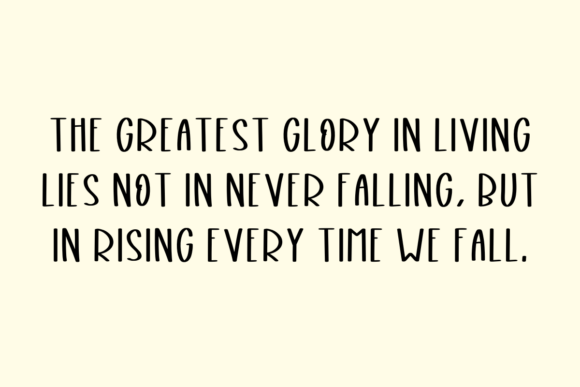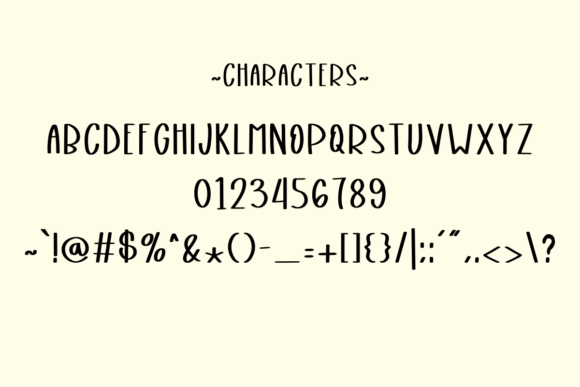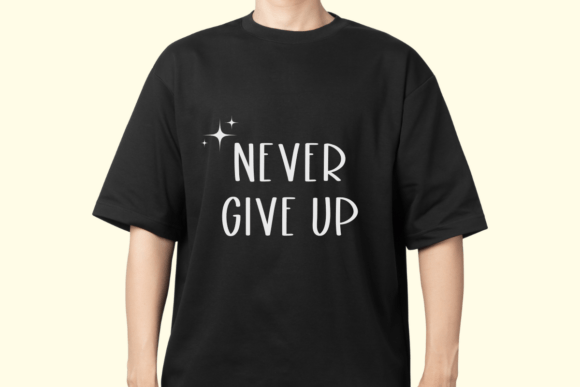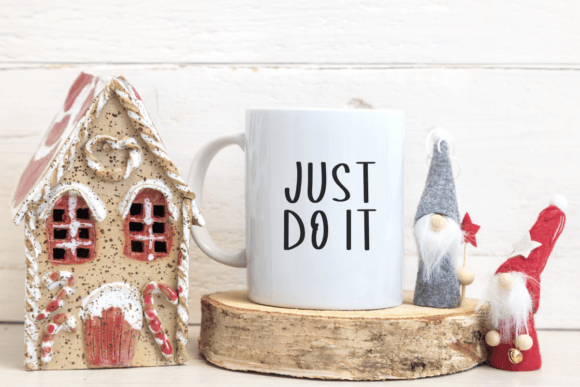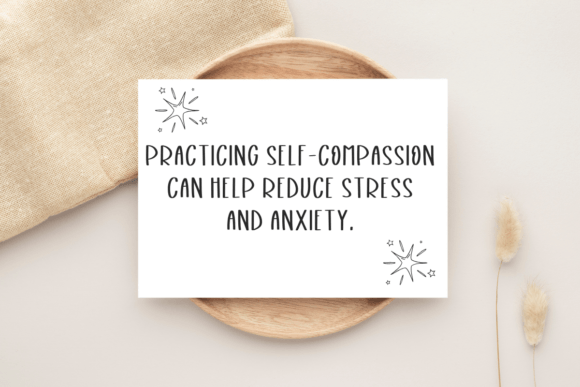
Celebration Fashion Font: Elevate Your Designs with a Fun and Unique Sans Serif Font
Celebration Fashion Font is a vibrant and playful sans serif font that can add a touch of excitement to any design project. Its natural and unique style makes it incredibly versatile, suitable for a wide range of designs, from creative crafts to digital media. In this article, we’ll explore the features and benefits of Celebration Fashion Font, and how it can inspire your next design project.
What is Celebration Fashion Font?
Celebration Fashion Font is a fun sans serif font that boasts a fresh and modern look. Its clean lines, rounded edges, and balanced proportions make it easy to read and visually appealing. The font’s unique style is perfect for designers and crafters looking to add a personal touch to their projects. Whether you’re creating party invitations, social media graphics, or craft tutorials, Celebration Fashion Font is an excellent choice.
Key Features of Celebration Fashion Font
- Unique and Playful Style: Celebration Fashion Font has a distinct and lively feel that sets it apart from other sans serif fonts.
- Highly Versatile: The font’s natural and effortless style makes it suitable for various design projects, from formal to informal.
- Easy to Read: The clean lines and balanced proportions of Celebration Fashion Font ensure that your text is clear and easy to read.
- Imagination is the Only Limit: With Celebration Fashion Font, your creativity knows no bounds. Use it to create stunning designs that reflect your personality and style.
Benefits of Using Celebration Fashion Font
Celebration Fashion Font offers several benefits to designers and crafters. Its unique style can help your designs stand out from the crowd, while its versatility ensures that it can be used in various contexts. The font’s readability makes it perfect for body text, headings, and titles. Additionally, Celebration Fashion Font is easy to pair with other fonts, allowing you to create stunning font combinations.
Use Cases for Celebration Fashion Font
Celebration Fashion Font is an excellent choice for various design projects, including:
- Party Invitations: Create eye-catching invitations for birthday parties, weddings, and other celebrations.
- Social Media Graphics: Use Celebration Fashion Font to create engaging social media graphics, such as quotes, promotions, and announcements.
- Craft Tutorials: Add a personal touch to your craft tutorials, patterns, and instructions.
- Digital Media: Use Celebration Fashion Font in your digital media projects, such as video titles, blog posts, and email newsletters.
Tips for Using Celebration Fashion Font
To get the most out of Celebration Fashion Font, follow these tips:
- Experiment with Font Sizes: Play with different font sizes to create visual hierarchy and emphasis.
- Pair with Other Fonts: Combine Celebration Fashion Font with other fonts to create stunning font combinations.
- Use Colors Wisely: Choose colors that complement the font and enhance the overall design.
- Keep it Simple: Don’t overcomplicate your design. Keep it simple and let Celebration Fashion Font shine.
Celebration Fashion Font is a fun and unique sans serif font that can elevate your designs and add a touch of personality. Its versatility, readability, and playful style make it an excellent choice for various design projects. Whether you’re a designer, crafter, or DIY enthusiast, Celebration Fashion Font is a great addition to your font collection. So, let your imagination run wild and create stunning designs with Celebration Fashion Font!